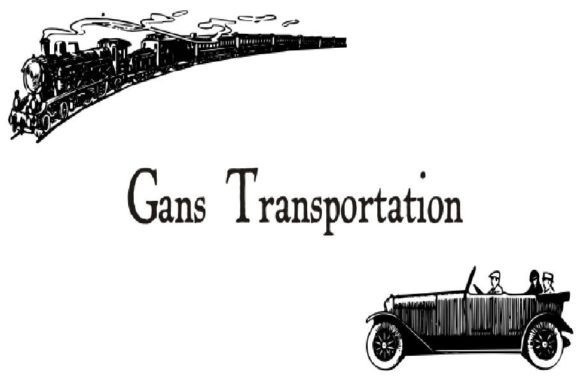
Introducing Gans Transportation Font, a captivating collection of dingbats that will transport you back to the 1930s with its vintage charm and nostalgic appeal. Created by the creative geniuses at Intellecta Design, this font family is the perfect choice for anyone in search of a font style for car stickers that truly stands out.
With Gans Transportation Font, each character is meticulously crafted to resemble various modes of transportation from the golden era. From classic cars and steam locomotives to bicycles and airplanes, this collection captures the essence of travel and adventure with every stroke.
Immerse yourself in a world where typography meets transportation, where fonts become a visual representation of your love for all things vintage and unique. Whether you're a car enthusiast, a lover of retro aesthetics, or simply seeking to make a bold statement, Gans Transportation Font has got you covered.
But it's not just about the stunning visuals; Gans Transportation Font is also designed with functionality in mind. Its dingbat format allows for easy integration into any design project, making it a versatile option for both personal and professional use. From car decals and posters to website graphics and branding materials, the possibilities are endless.
Embrace the power of emotional connection as you embark on a journey through time with Gans Transportation Font. Let the charm of these transport motiv dingbats ignite your creativity and evoke a sense of awe in your audience. Stand out from the crowd and make an unforgettable impression with this captivating collection.
In conclusion, Gans Transportation Font is not just a font; it's an experience. It's a ticket to a bygone era of elegance, adventure, and limitless possibilities. So why settle for ordinary when you can have extraordinary? Download Gans Transportation Font today and let your designs take flight!